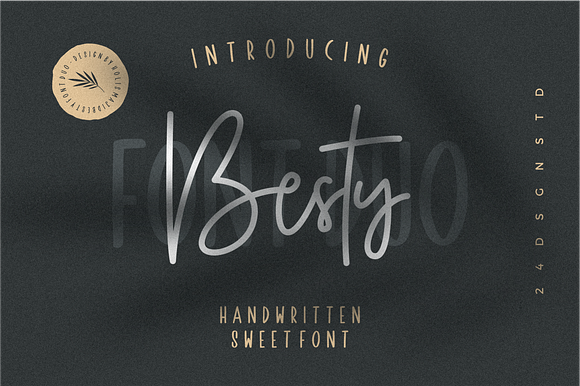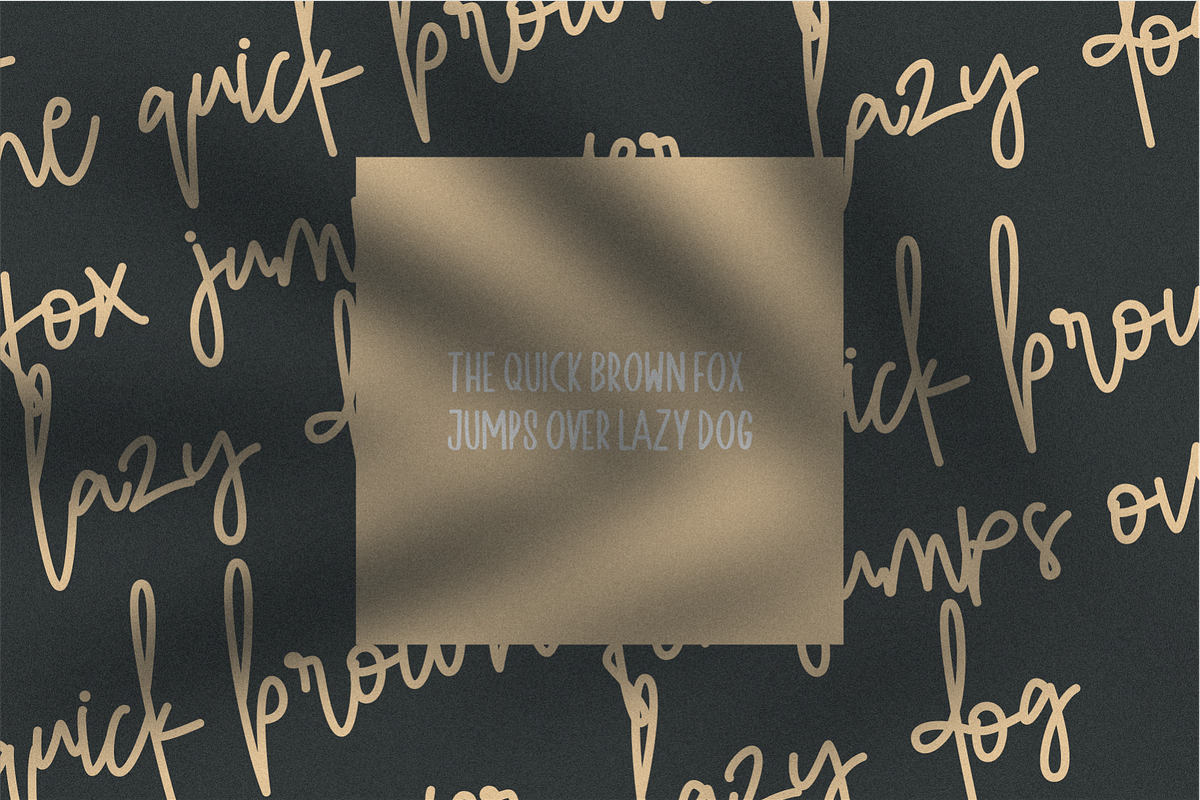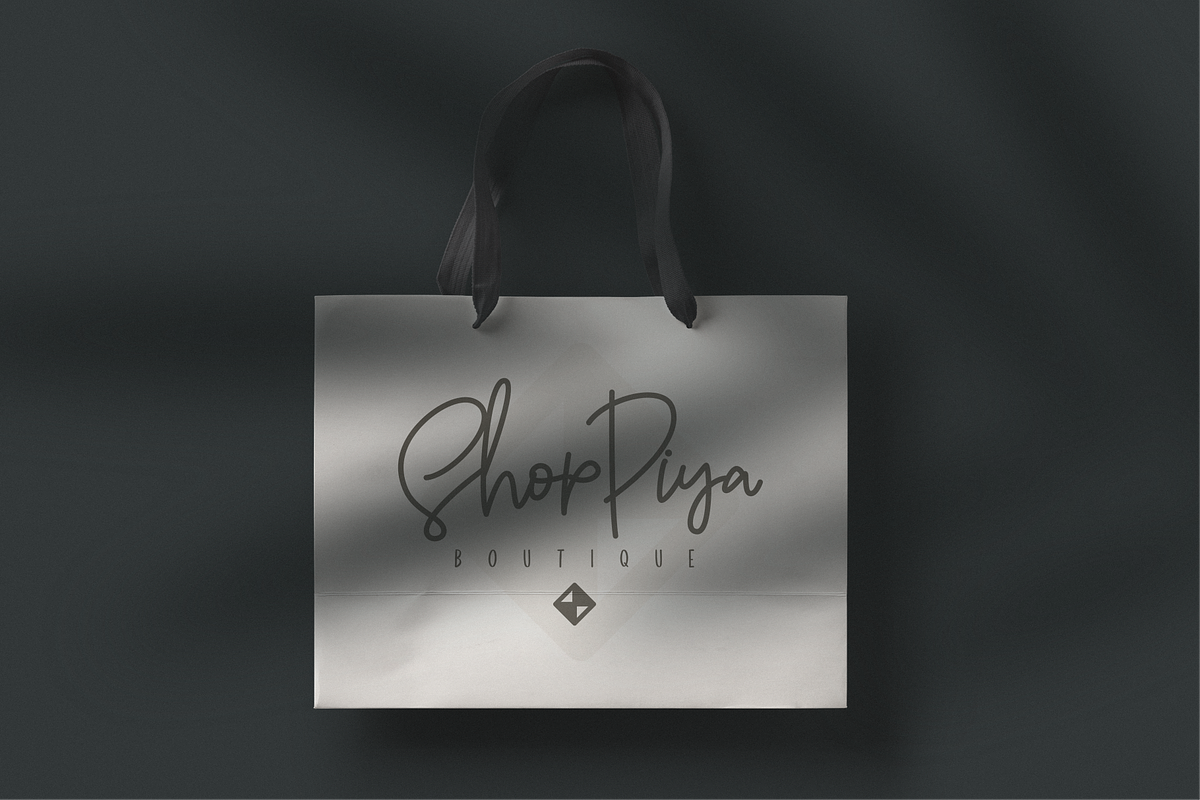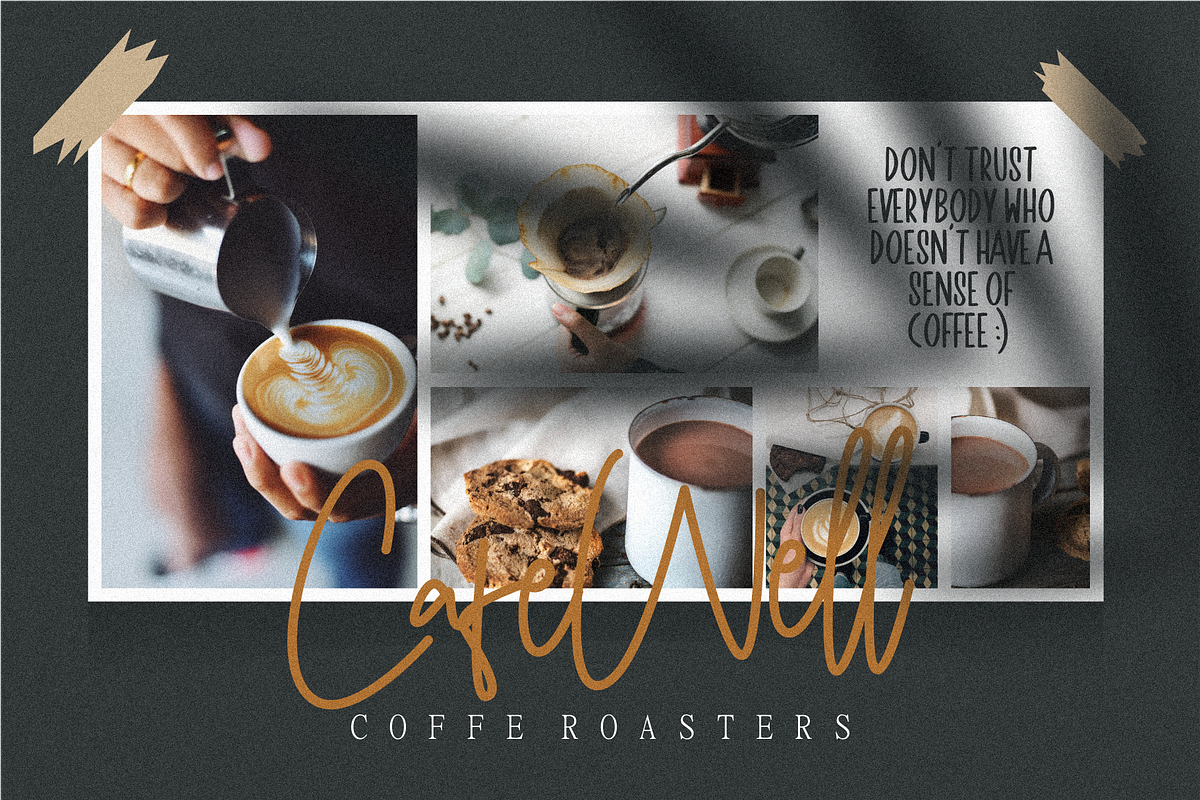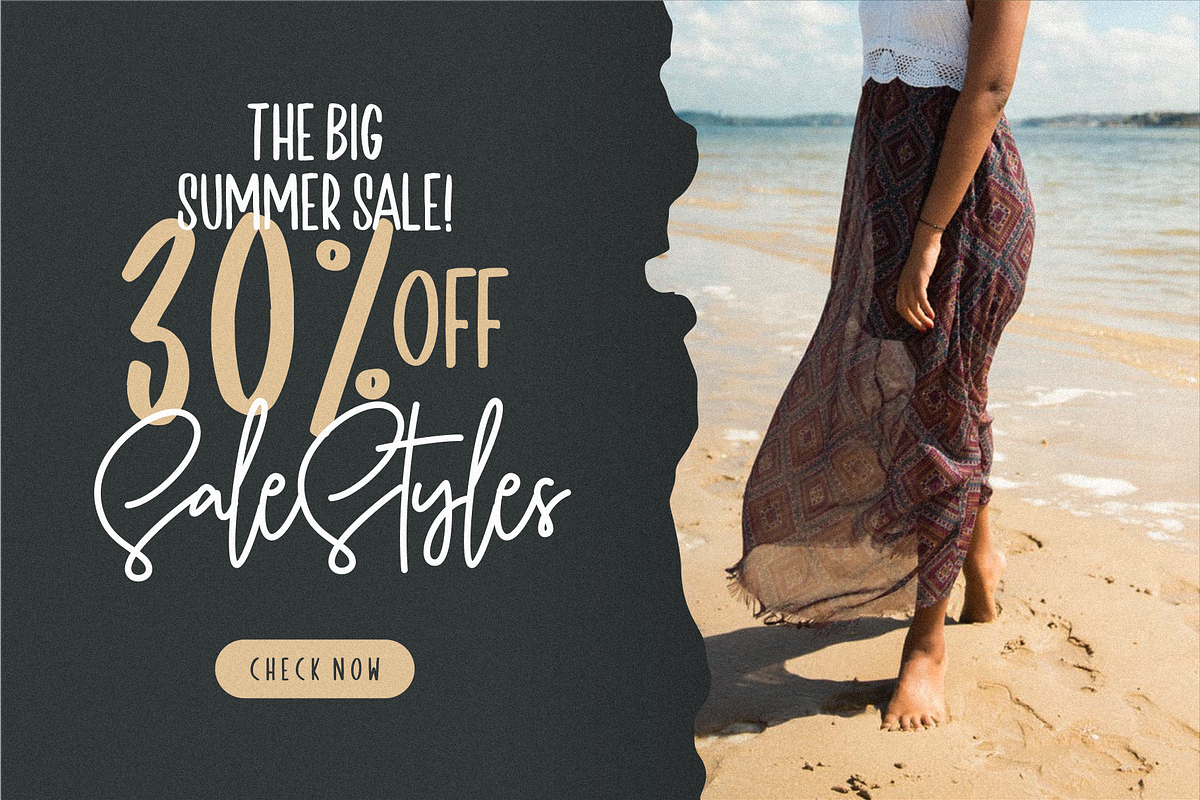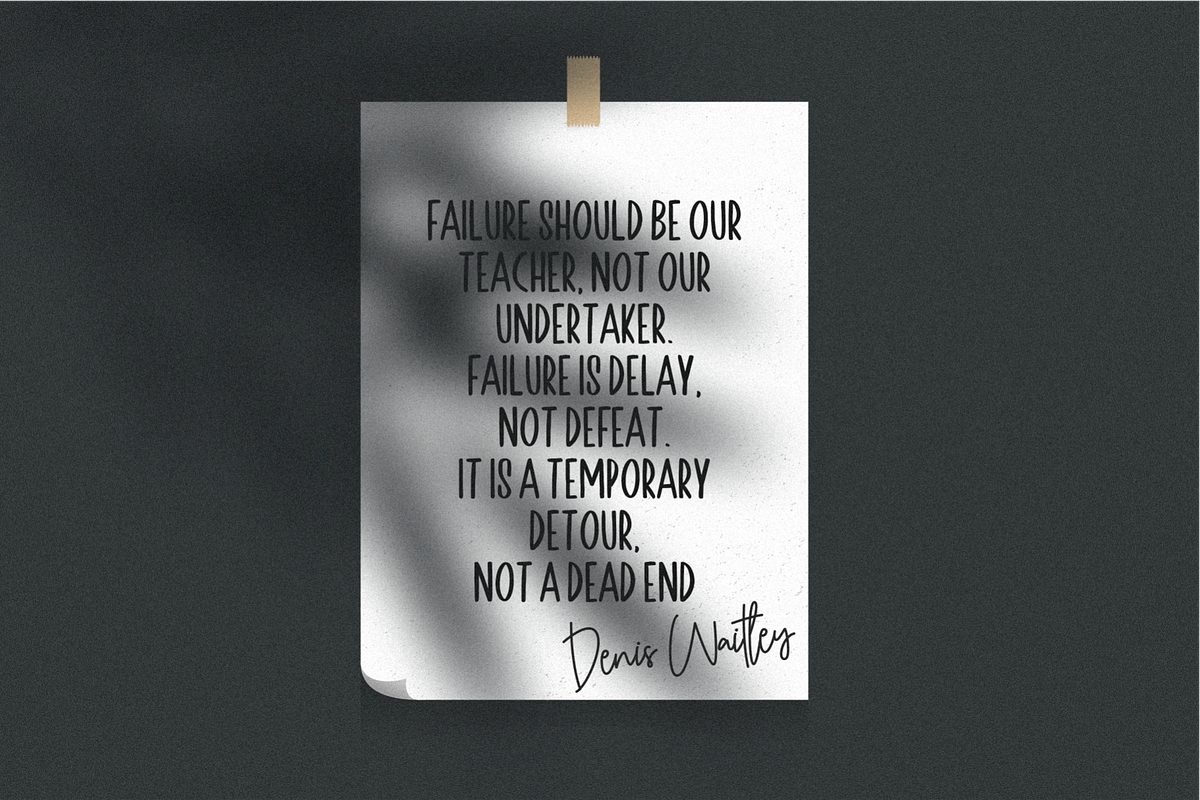
Besty Font Duo
Besty is a duo font with script and handwriting style, this font is suitable for logos, cover titles, posters, invitations and other design products.
Besty Font Duo by 24Design Studios fits naturally into Branding, posters, packaging, typography.